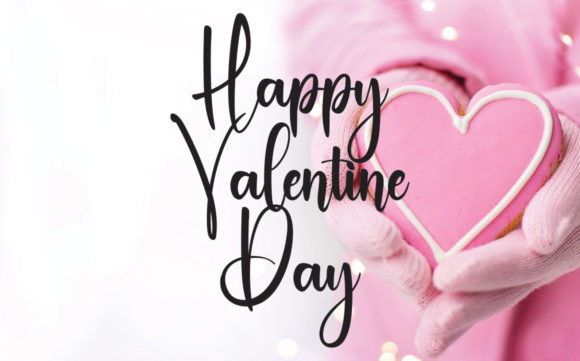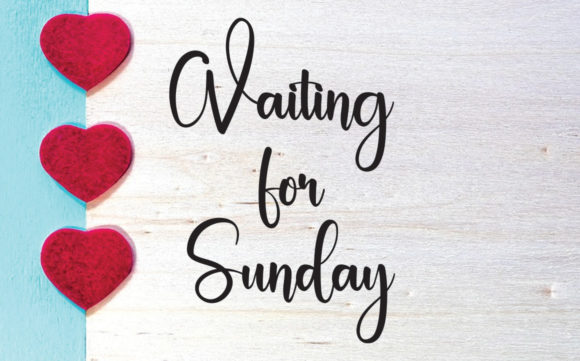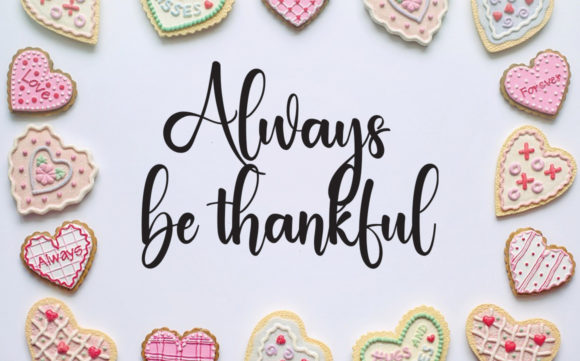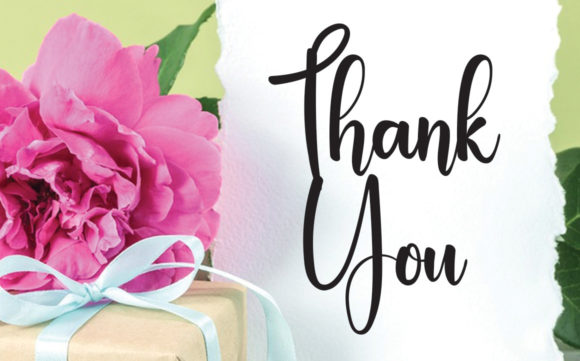
The Beloved Font: A Sweet and Romantic Handwritten Delight
I’ll never forget the moment I stumbled upon the Beloved font. I was working on a wedding invitation project for a client, and I was struggling to find the perfect font that captured the sweet and romantic vibe they wanted. As I scrolled through my font library, I came across Beloved, and it was love at first sight! 💕
This beautiful handwritten font has a delicate flow that instantly added a touch of elegance and sophistication to my design. I knew right then and there that I had found the perfect fit for my client’s project. In this article, I’ll share with you why I’m obsessed with the Beloved font, its features, and how to make the most of it in your designs.
- ✨ Delicate and elegant handwritten style
- ✅ Perfect for romantic and whimsical designs
- 💕 Beautifully crafted to evoke emotions and connections
- 🎉 Versatile and suitable for various design projects
While the Beloved font is amazing, there are a few things to keep in mind:
- 🤔 Limited availability of certain characters and glyphs
- ⚠️ May not be suitable for very large or bold designs
The Designer Inspiration Behind Beloved
The Beloved font was crafted with love and care by a talented type designer who wanted to create a font that would evoke emotions and connections. The designer drew inspiration from classic handwritten scripts and infused them with a modern twist. The result is a beautiful and unique font that’s perfect for romantic and whimsical designs.
| Font Name | Beloved Font |
| Author | Garcio |
Q: What type of designs is Beloved best suited for?
A: Beloved is perfect for designs that require a touch of elegance and sophistication, such as wedding invitations, wall displays, and social media post logos.
Q: Does Beloved support OpenType features?
A: Yes, Beloved supports OpenType features, including ligatures, stylistic alternates, and glyphs.